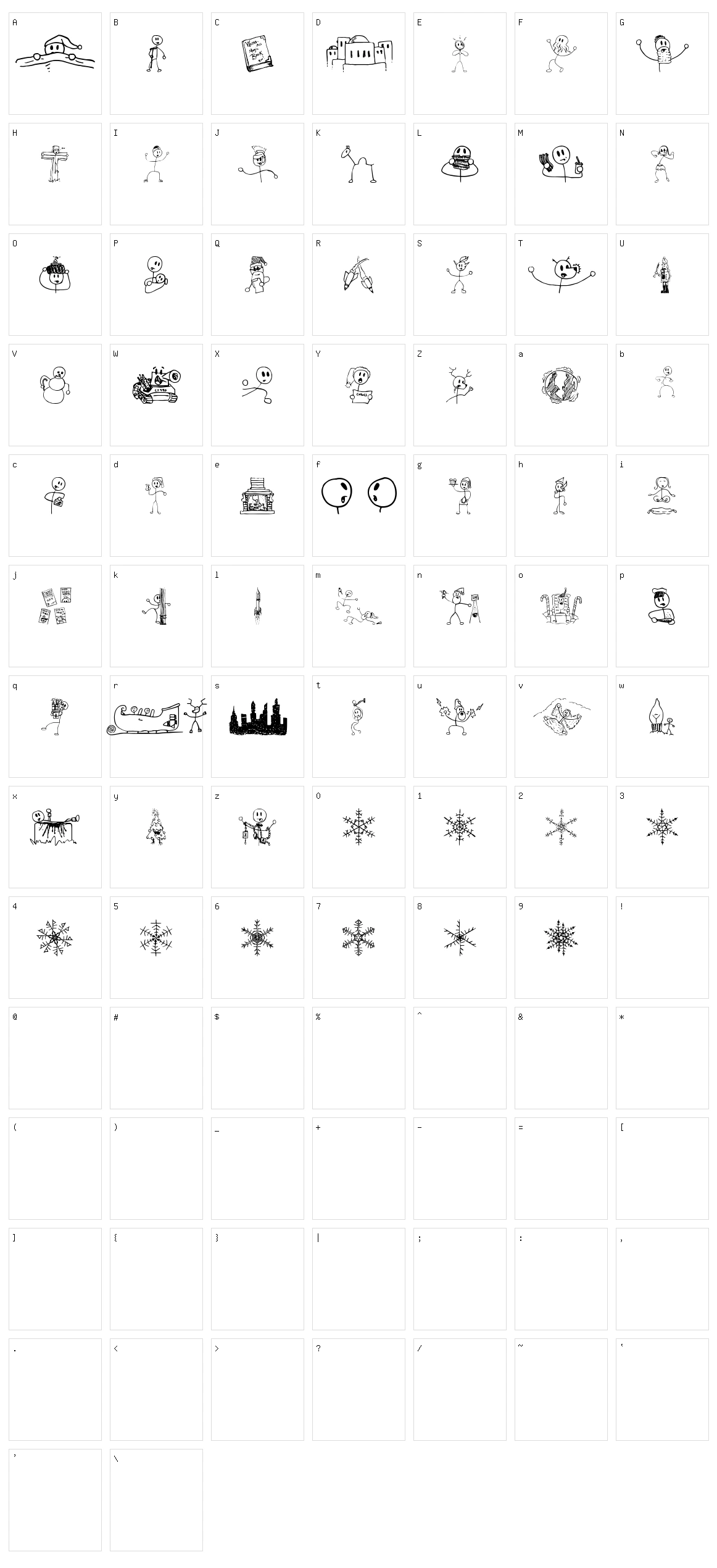
RISUS LCB KRINGLEBATS
A TrueType Font by S. John Ross
Heres a sequel to an earlier dingbat font, this time called Risus LCB Kringlebats. Like the earlier Risus dingbat font, its mostly stick-figure art, this time from my newest release, A Kringle in Time (so of course, three are lots of Christmas-type doodles). The images appear in very approximate order of chapters if you start at lowercase a and move alphabetically from there up through the uppercase set. The snowflakes I built for Kringle are here, too, mapped to Zero through 9.